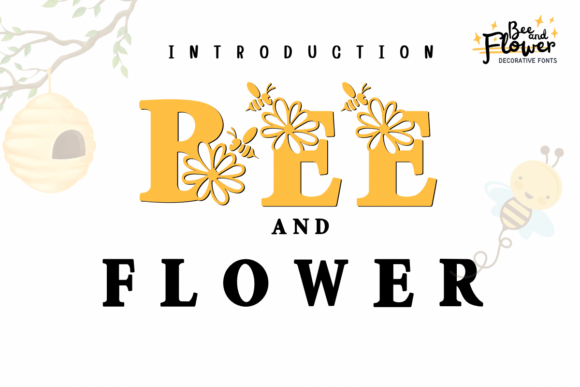
Introducing Flower and Bee Font: The Perfect Decorative Font for Your Creative Projects
Are you looking for a unique and creative font to add a personal touch to your writing, designs, or social media posts? Look no further than the Flower and Bee Font! This decorative font is perfect for taking notes, writing a diary, or making greeting cards, and its versatility makes it suitable for a wide range of design projects.
What is Flower and Bee Font?
Flower and Bee Font is a beautifully designed decorative font that features intricate floral patterns and bee-inspired elements. The font is designed to add a touch of whimsy and elegance to any text, making it perfect for a variety of creative projects. Whether you’re a writer, designer, or social media enthusiast, Flower and Bee Font is sure to inspire your creativity.
Uses of Flower and Bee Font
One of the best things about Flower and Bee Font is its versatility. Here are some of the many ways you can use this font:
- Note-taking and journaling: Add a personal touch to your notes and journal entries with Flower and Bee Font. The font’s decorative elements make it perfect for writing titles, headings, and even doodling.
- Greeting cards and invitations: Create beautiful and unique greeting cards and invitations with Flower and Bee Font. The font’s floral patterns and bee-inspired elements make it perfect for special occasions like weddings, birthdays, and holidays.
- Banners and signs: Use Flower and Bee Font to create eye-catching banners and signs for parties, events, or promotions.
- Social media posts: Add a touch of personality to your social media posts with Flower and Bee Font. Use the font to create engaging and shareable content that stands out from the crowd.
- Mugs, cards, and stationery: Create beautiful and unique designs for mugs, cards, and stationery with Flower and Bee Font.
- Shirts and apparel: Use Flower and Bee Font to create custom designs for shirts, tote bags, and other apparel.
Features of Flower and Bee Font
Here are some of the key features that make Flower and Bee Font so special:
- Unique and decorative design: Flower and Bee Font features a unique and decorative design that is sure to add a touch of personality to any text.
- Intricate floral patterns: The font features intricate floral patterns that are perfect for creating beautiful and eye-catching designs.
- Bee-inspired elements: The font also features bee-inspired elements, adding a touch of whimsy and playfulness to any design.
- Elegant and sophisticated: Despite its playful elements, Flower and Bee Font is also elegant and sophisticated, making it perfect for a wide range of design projects.
Tips for Using Flower and Bee Font
Here are some tips for getting the most out of Flower and Bee Font:
- Use it sparingly: While Flower and Bee Font is beautiful, it can be overwhelming if used too much. Use it sparingly to add a touch of personality to your designs.
- Experiment with different colors: The font looks great in a variety of colors, so don’t be afraid to experiment and find the perfect color scheme for your design.
- Pair it with other fonts: Flower and Bee Font pairs well with other fonts, so try combining it with a simple font for a striking contrast.
- Have fun: Most importantly, have fun with Flower and Bee Font! The font is designed to inspire creativity, so don’t be afraid to get creative and try new things.
Flower and Bee Font is a beautiful and versatile decorative font that is perfect for a wide range of creative projects. Its unique and decorative design, intricate floral patterns, and bee-inspired elements make it a standout font that is sure to add a touch of personality to any text. Whether you’re a writer, designer, or social media enthusiast, Flower and Bee Font is a great choice for anyone looking to add a touch of whimsy and elegance to their designs.